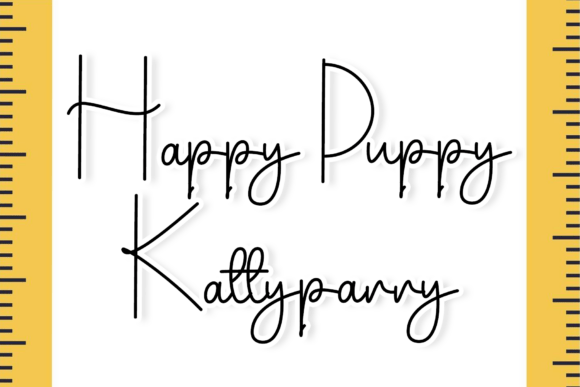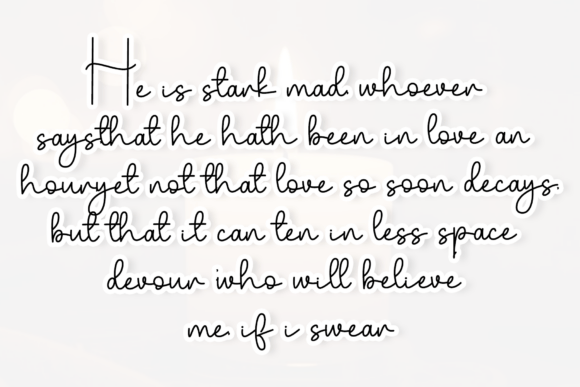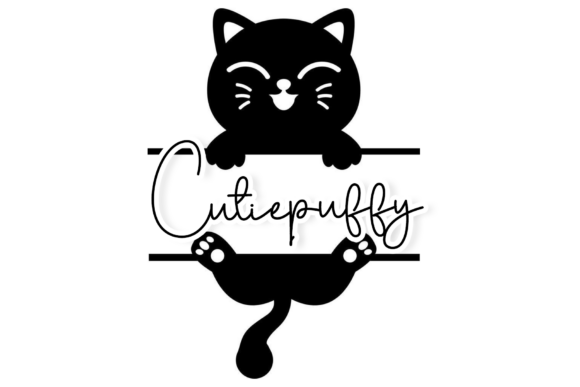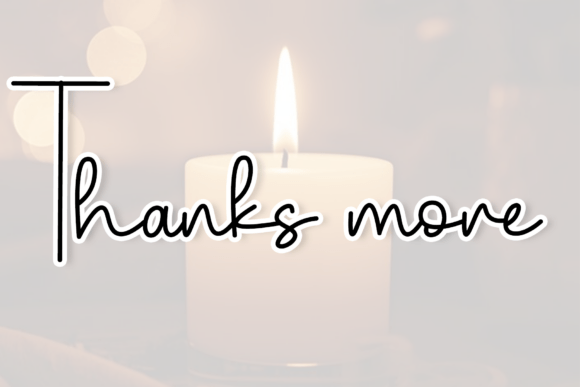
Dinner Candylight Font: A Timeless Handwritten Font for Stunning Designs
Are you a designer or crafter looking for a font that can add a touch of elegance and sophistication to your work? Look no further than Dinner Candylight Font. This lovely and timeless handwritten font is perfect for creating eye-catching logos, branding, and quotes that will leave a lasting impression on your audience.
What Makes Dinner Candylight Font Special?
Dinner Candylight Font is a unique and beautiful font that stands out from the rest. Every letter has a distinctive and elegant touch that will make your design come alive. The font’s handwritten style gives it a personal and organic feel, making it perfect for designs that require a touch of warmth and personality.
Dinner Candylight Font is an excellent choice for creating stunning logos, branding, and quotes. Its elegant and sophisticated style makes it perfect for businesses and individuals who want to create a professional and lasting impression. Whether you’re designing a logo for a new business or creating a quote for social media, Dinner Candylight Font is the perfect choice.
Unique and Beautiful Touch
One of the standout features of Dinner Candylight Font is its unique and beautiful touch. Every letter is carefully crafted to give it a distinctive and elegant feel. The font’s unique style makes it perfect for designers and crafters who want to create designs that stand out from the rest.
Why Choose Dinner Candylight Font?
There are many reasons why Dinner Candylight Font is the perfect choice for designers and crafters. Here are just a few:
- Timeless style: Dinner Candylight Font has a timeless style that will never go out of fashion.
- Elegant and sophisticated: The font’s elegant and sophisticated style makes it perfect for professional designs.
- Unique and beautiful touch: Every letter has a unique and beautiful touch that will make your design stand out.
- Perfect for logos, branding, and quotes: Dinner Candylight Font is perfect for creating stunning logos, branding, and quotes.
How to Use Dinner Candylight Font
Dinner Candylight Font is easy to use and can be incorporated into a variety of designs. Here are a few tips on how to use the font:
- Use it for logos: Dinner Candylight Font is perfect for creating stunning logos that will make your business stand out.
- Use it for branding: The font’s elegant and sophisticated style makes it perfect for branding materials such as business cards and brochures.
- Use it for quotes: Dinner Candylight Font is perfect for creating inspiring and motivational quotes for social media.
Dinner Candylight Font is a lovely and timeless handwritten font that is perfect for designers and crafters who want to create stunning designs. Its elegant and sophisticated style, unique and beautiful touch, and versatility make it the perfect choice for a variety of designs. Whether you’re creating a logo, branding materials, or quotes, Dinner Candylight Font is the perfect choice.